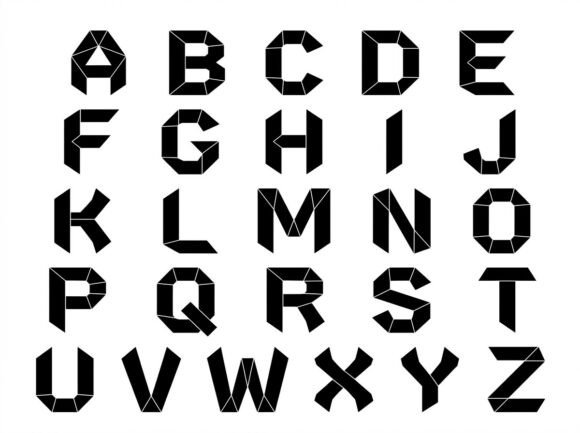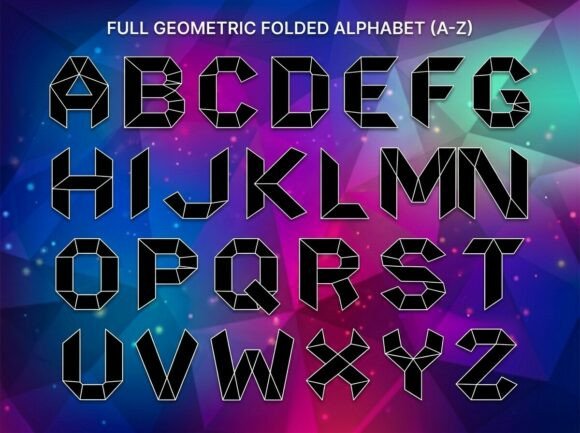
Discover Clair: The Trending Geometric Folded Font Redefining Modern Minimalism
In the world of typography, few fonts have made as significant an impact as Clair, a revolutionary geometric folded font that is redefining the boundaries of modern minimalism. With its unique architectural structure, Clair is an exceptional choice for designers and crafters looking to elevate their visual storytelling and add a touch of structured innovation to their projects.
The Unique Architecture of Clair
Clair’s design is characterized by its precise, triangular facets that create a striking 3D “origami” effect. Every character in this font is constructed from these sharp, mathematical angles, giving it a bold visual weight that is both eye-catching and memorable. This distinctive feature makes Clair an ideal choice for a wide range of applications, from tech-focused branding and avant-garde editorial layouts to high-concept movie posters and futuristic gaming logos.
Applications of Clair: Where Innovation Meets Artistry
Clair’s versatility is one of its most compelling attributes. Whether you’re designing for a digital startup looking to make a bold statement in the tech industry or a boutique architectural firm seeking a sophisticated, modern aesthetic, Clair delivers a sense of structured innovation and artistic precision to every word. Its applications are vast and varied, including:
- Tech-Focused Branding: Clair’s futuristic look and feel make it perfect for tech startups and companies looking to convey a sense of innovation and cutting-edge technology.
- Avant-Garde Editorial Layouts: Add a touch of modern minimalism to your editorial designs with Clair’s unique geometric style.
- High-Concept Movie Posters: Create eye-catching and memorable movie posters with Clair’s bold and striking 3D effect.
- Futuristic Gaming Logos: Elevate your gaming brand with a logo that stands out, thanks to Clair’s sharp, mathematical angles and bold visual weight.
The Benefits of Using Clair in Your Designs
Choosing Clair for your typography needs comes with several benefits. Its unique design not only sets your work apart but also:
- Enhances Readability: Despite its bold and complex appearance, Clair maintains a high level of readability, making it suitable for both headlines and body text.
- Versatility: With its wide range of applications, Clair can be used across various platforms and mediums, from digital screens to print materials.
- Timeless Appeal: The geometric style of Clair ensures that your designs remain contemporary and relevant, avoiding the quickly outdated look of some trendy fonts.
How to Get the Most Out of Clair
To truly elevate your visual storytelling with Clair, consider the following tips:
- Experiment with Colors: Play with different color schemes to enhance the 3D effect of Clair and make your designs pop.
- Mix and Match: Combine Clair with other fonts to create contrast and add depth to your designs.
- Adjust Weight and Size: Take advantage of Clair’s bold visual weight by experimenting with different sizes and weights to create visual hierarchy in your designs.
Clair is more than just a font; it’s a statement. Its geometric folded design redefines modern minimalism, offering a fresh perspective for designers and crafters looking to push the boundaries of visual storytelling. With its versatility, readability, and timeless appeal, Clair is poised to become a staple in the world of typography. Whether you’re working on a tech startup’s branding, an avant-garde editorial layout, or a futuristic gaming logo, Clair is the perfect choice for those who seek to combine structured innovation with artistic precision.